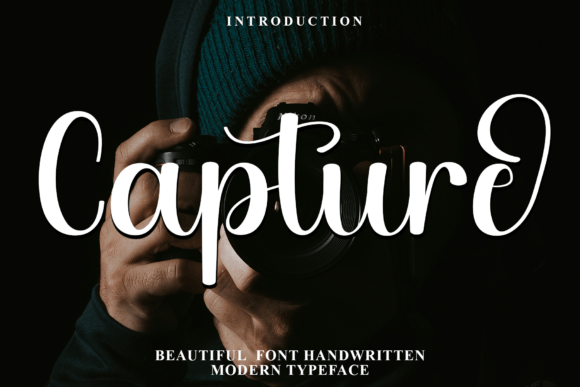
Introducing Capture Font: A Unique and Versatile Typeface for Creative Projects
In the world of typography, fonts play a crucial role in conveying messages, expressing emotions, and adding aesthetic value to designs. Among the numerous fonts available, Capture Font stands out for its soft, unique touch and distinctive strokes, making it a perfect choice for various creative projects. In this article, we will explore the features, benefits, and applications of Capture Font, and why it’s an excellent addition to your design arsenal.
The Distinctive Characteristics of Capture Font
Capture Font is a beautifully crafted typeface that boasts a soft and unique touch. Its distinctive strokes give it a special character, making it meaningful and versatile for future use. The font’s design is carefully crafted to ensure that it stands out from the crowd, while still being easy to read and understand. With various characters, Capture Font is perfect for design projects, crafts, and other creative works.
Key Features of Capture Font
- Soft and Unique Touch: Capture Font has a distinctive softness that sets it apart from other fonts. Its unique touch makes it perfect for designs that require a personal and creative approach.
- Distinctive Strokes: The font’s strokes are carefully designed to give it a special character. This distinctive feature makes Capture Font versatile and suitable for various design projects.
- Versatile and Meaningful: Capture Font is designed to be meaningful and versatile, making it perfect for future use in various design projects.
Benefits of Using Capture Font
Using Capture Font in your design projects offers several benefits. Its unique and soft touch adds an aesthetic value to your designs, making them appealing to a wide range of audiences. The font’s versatility and compatibility with various applications make it an excellent choice for designers, artists, and crafters.
Here are some benefits of using Capture Font:
- Enhances Design Aesthetic: Capture Font adds a unique touch to your designs, making them stand out from the crowd.
- Increases Versatility: The font’s versatility makes it suitable for various design projects, from crafts to digital designs.
- Improves Readability: Capture Font is designed to be easy to read and understand, making it perfect for designs that require clear communication.
Applications of Capture Font
Capture Font is a versatile typeface that can be used in various design projects, including:
- Digital Designs: Use Capture Font in your digital designs, such as brochures, posters, and social media graphics.
- Crafts: Capture Font is perfect for craft projects, such as handmade cards, invitations, and scrapbooking.
- Artistic Projects: The font’s unique touch makes it an excellent choice for artistic projects, such as illustrations, paintings, and drawings.
Why Choose Capture Font?
With so many fonts available, why choose Capture Font? Here are some reasons why Capture Font stands out:
- Unique Design: Capture Font has a distinctive design that sets it apart from other fonts.
- Versatility: The font’s versatility makes it suitable for various design projects.
In conclusion, Capture Font is a beautiful and eye-catching typeface that offers a unique touch and distinctive strokes. Its versatility, compatibility, and aesthetic value make it an excellent choice for various design projects. Whether you’re a designer, artist, or crafter, Capture Font is a perfect addition to your design arsenal.
FAQs About Capture Font
- What is Capture Font?
- Capture Font is a beautifully crafted typeface with a soft, unique touch and distinctive strokes.